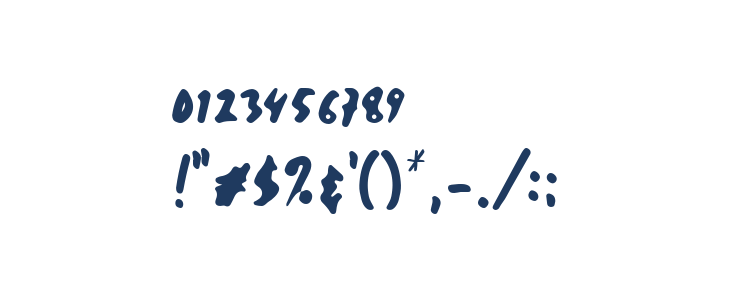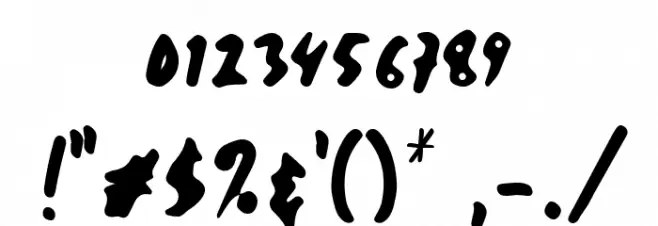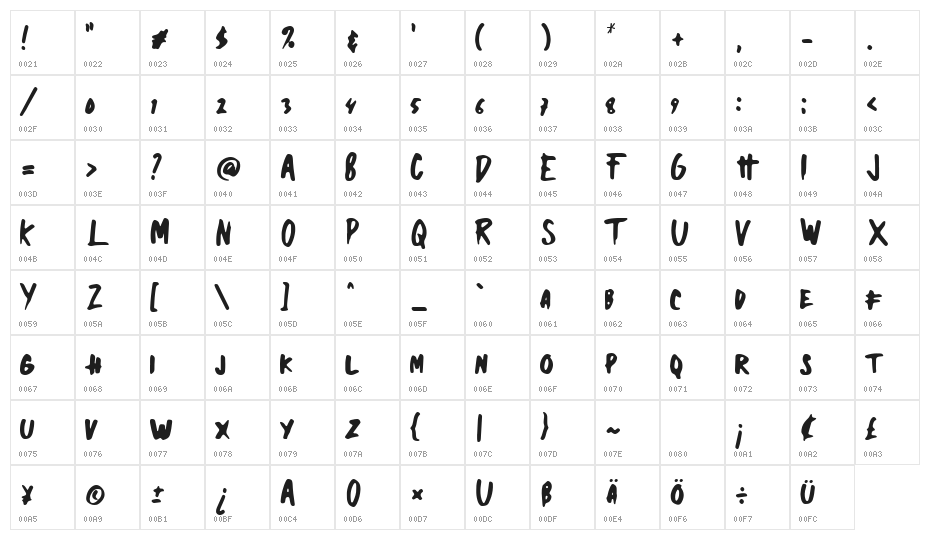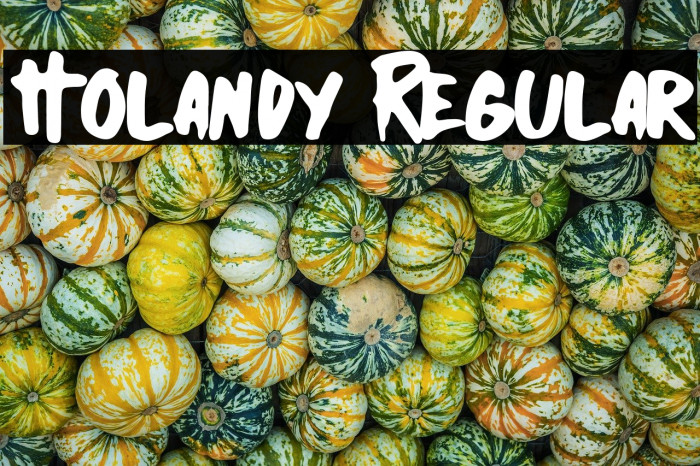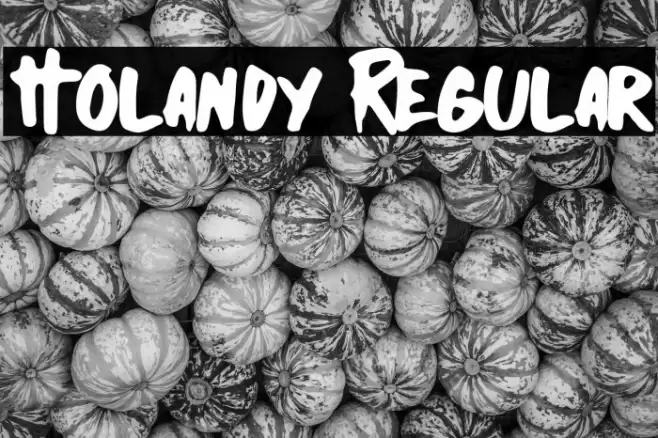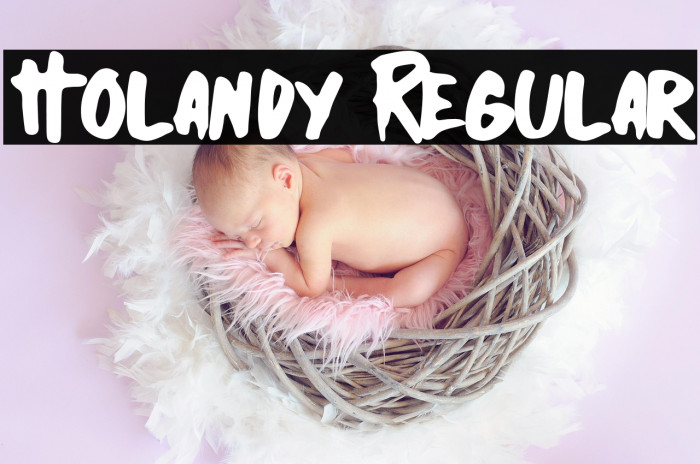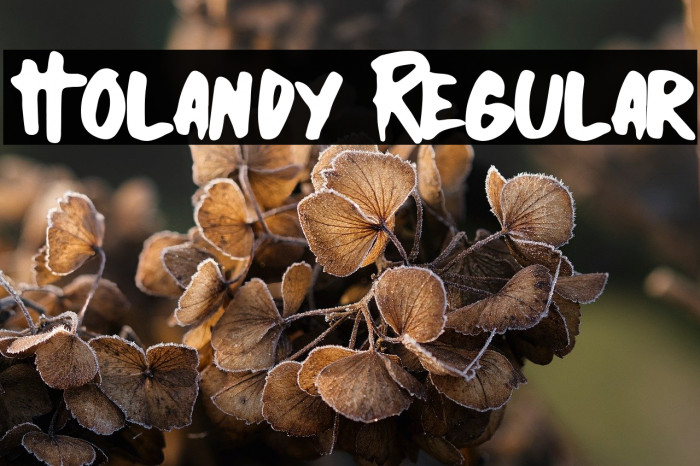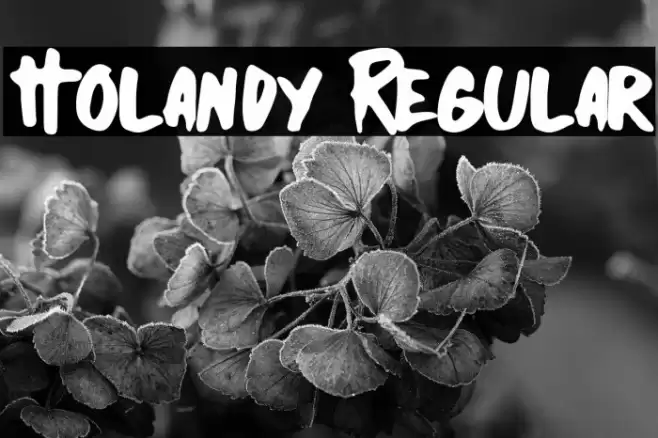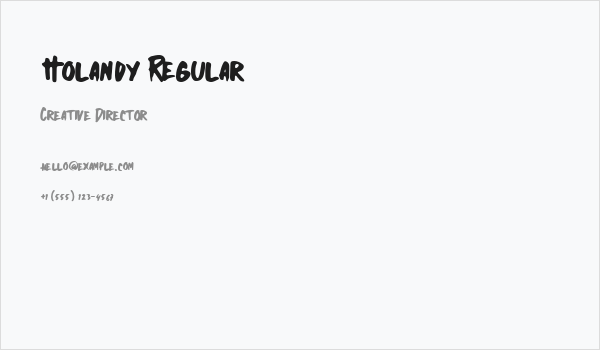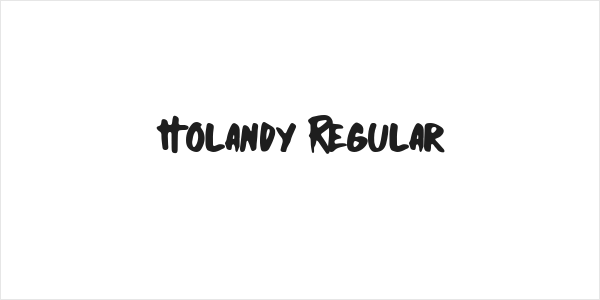
Holandy Regular Font
Holandy Regular Description
This font features a bold, expressive style with a handwritten appearance. The letters are thick and slightly irregular, giving a playful and dynamic feel. The uppercase and lowercase characters maintain a consistent weight, while the numbers and special characters complement the overall design. The strokes are rounded and smooth, contributing to a friendly and approachable aesthetic. This font is well-suited for creative projects that require a personal touch, such as invitations, posters, and branding materials.
| Proposed Projects | Ideal for invitations, posters, branding materials, and creative projects needing a personal touch. |